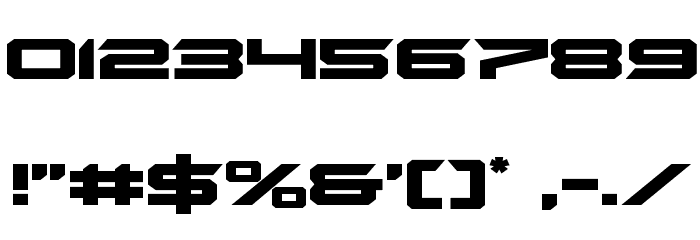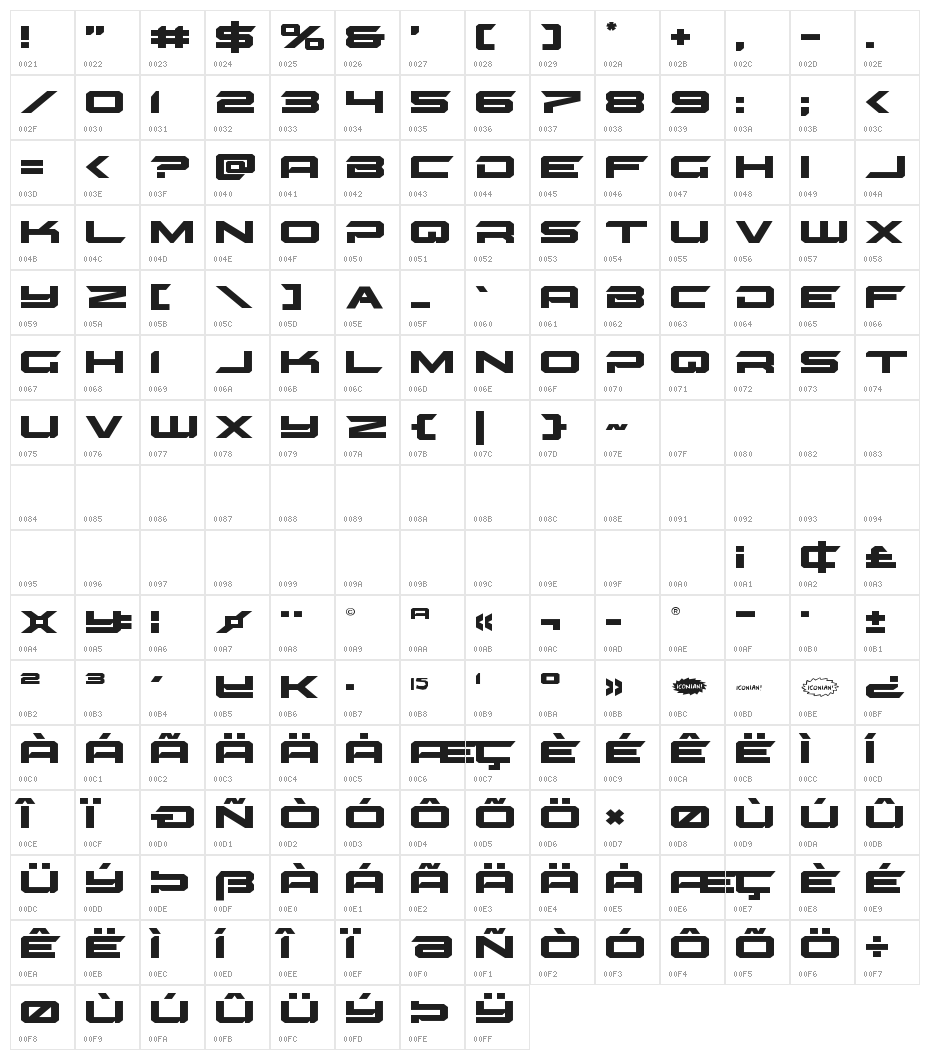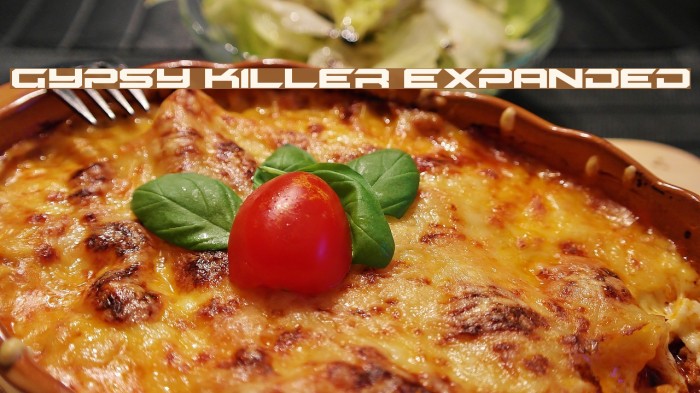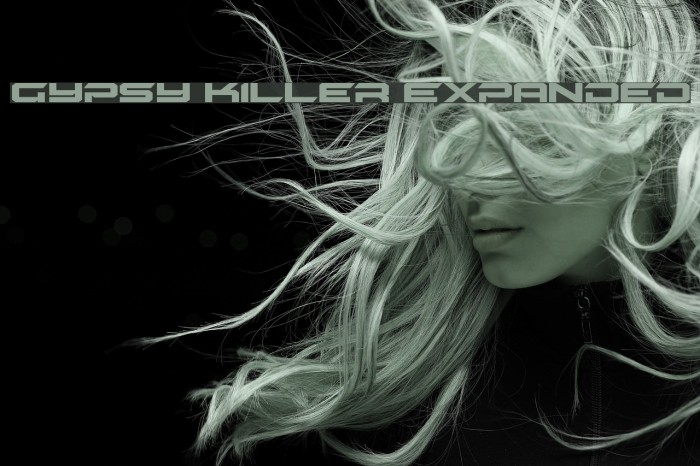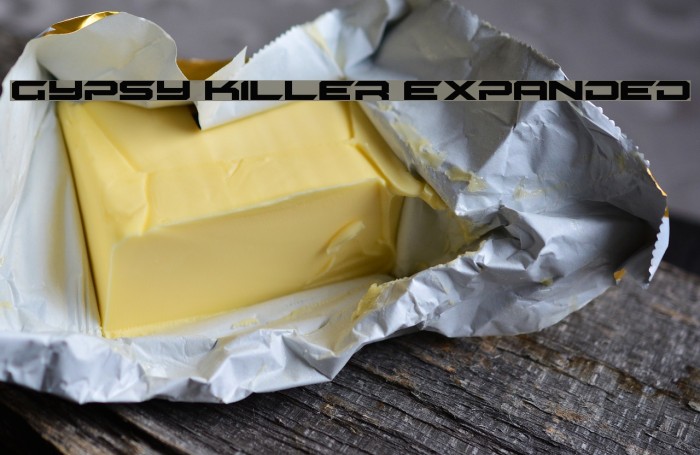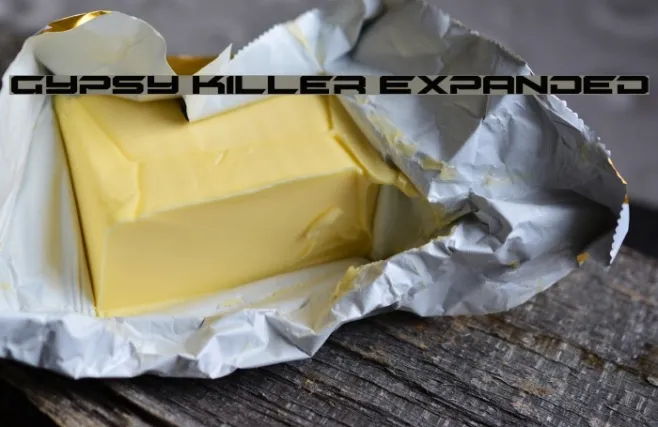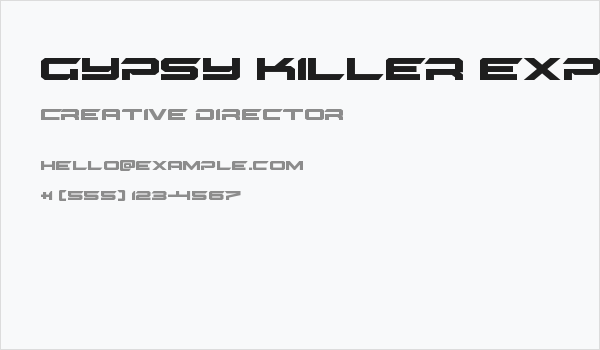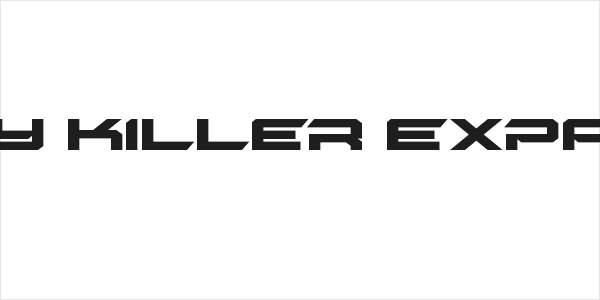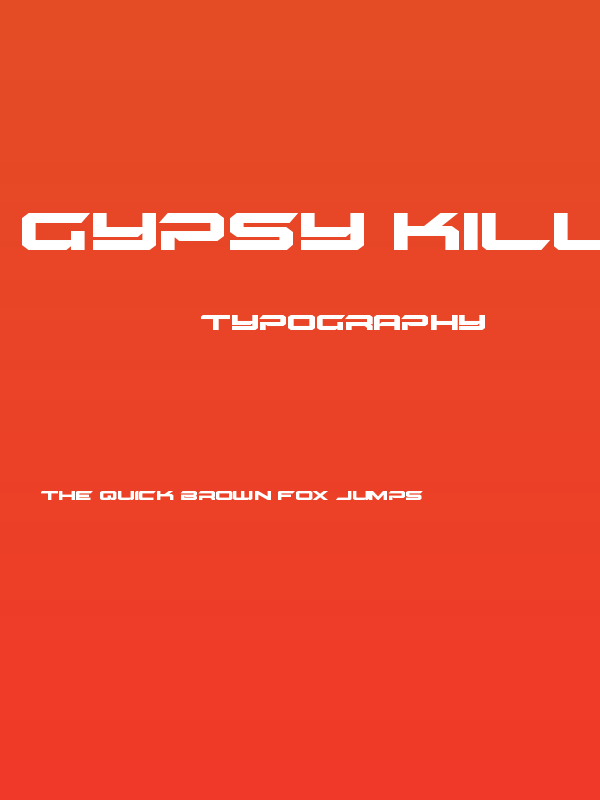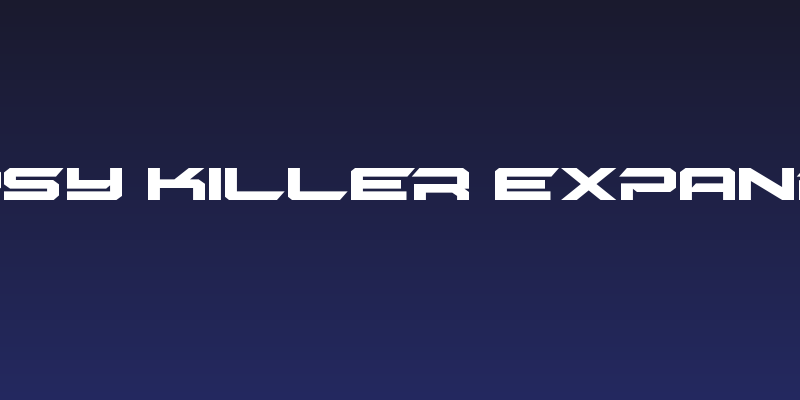
Gypsy Killer Expanded Font
Gypsy Killer Expanded Description
This font features a bold, futuristic design with geometric shapes and sharp angles. The characters are wide and have a distinct, mechanical appearance, making them stand out prominently. The uppercase letters are consistent in height, while the numbers and special characters maintain the same bold style. The font's unique design elements give it a modern and edgy feel, suitable for projects that require a strong visual impact. Its expanded width and uniform stroke thickness contribute to its bold presence, making it ideal for attention-grabbing headlines and titles.
| Proposed Projects | Ideal for sci-fi themed designs, video game titles, tech branding, and futuristic posters. |